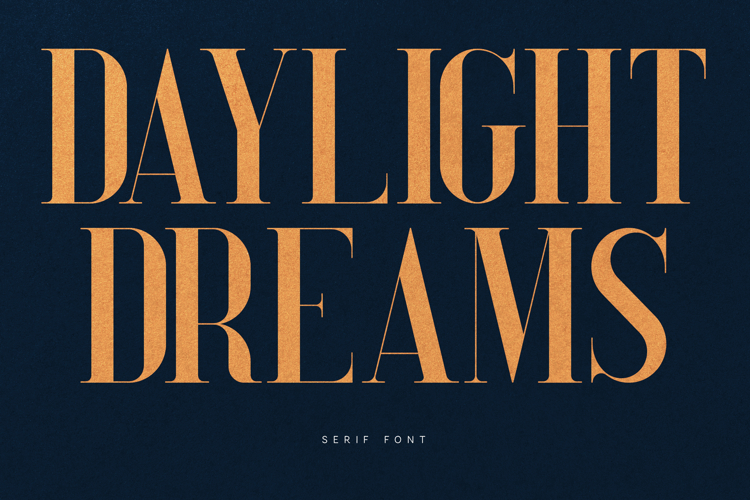
Daylight Dreams Elegant Luxury Serif Font
Daylight Dreams is a sophisticated modern serif typeface designed for elegant branding, luxury editorial design, and premium typography projects.
Featuring graceful high-contrast strokes, refined serifs, and balanced proportions, Daylight Dreams delivers a timeless aesthetic that blends modern minimalism with classic elegance. The delicate thin strokes combined with confident vertical forms create a strong visual rhythm that makes the font ideal for striking headlines and stylish branding.
Daylight Dreams works beautifully across a wide range of creative applications including fashion magazines, beauty packaging, boutique logos, luxury branding, and editorial layouts. Its refined personality gives designs a premium feel while maintaining excellent readability and versatility.
The typeface includes uppercase and lowercase characters, numbers, punctuation, and multilingual language support, allowing designers to create polished typography across international projects.
Whether used for high-end branding, magazine headlines, social media graphics, or wedding invitations, Daylight Dreams adds elegance, clarity, and sophistication to any design.